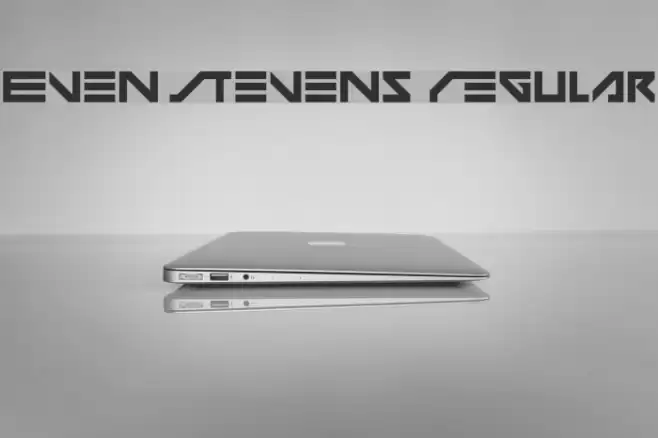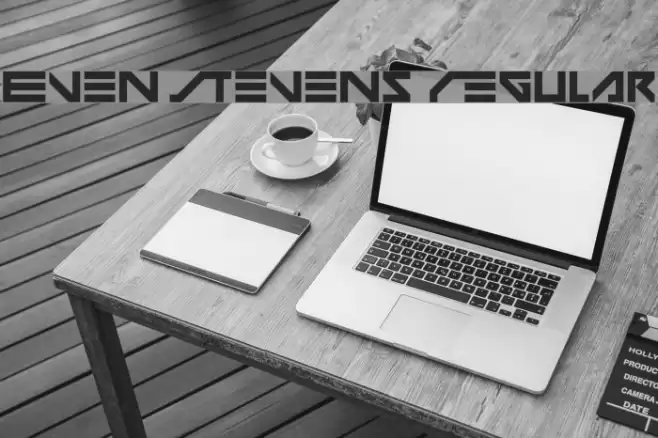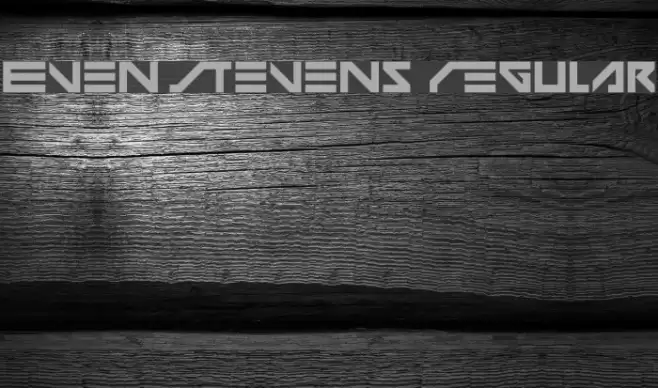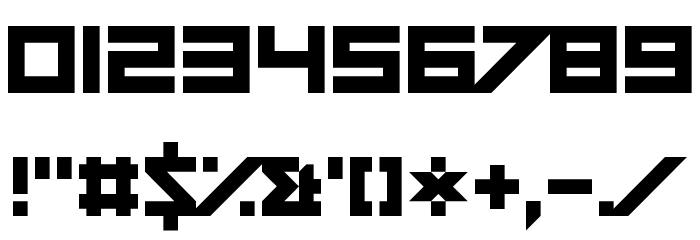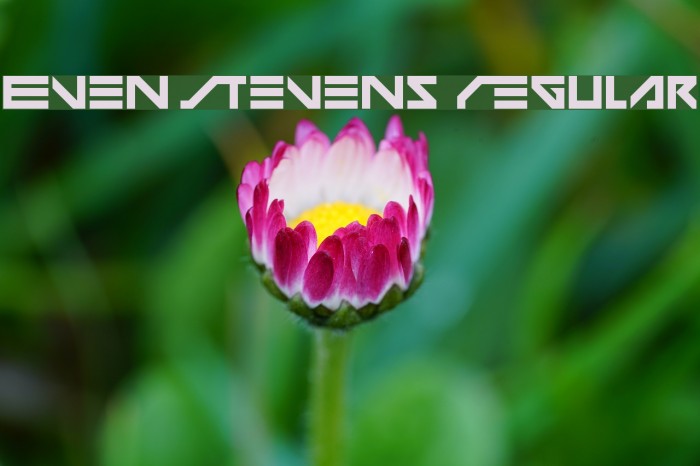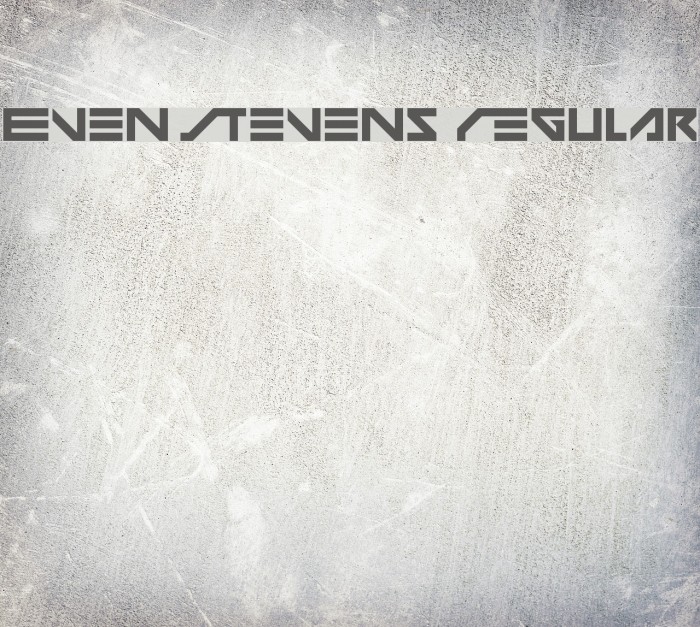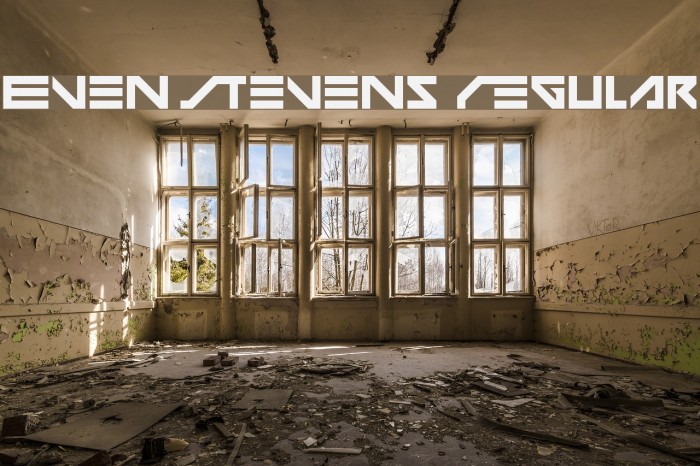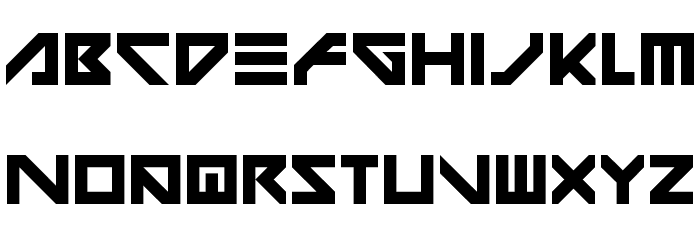
Even Stevens Regular Font
Even Stevens Regular Description
This font features a bold, geometric design with sharp angles and a futuristic aesthetic. The characters are constructed with straight lines and angular cuts, creating a sense of movement and modernity. The uppercase and lowercase letters maintain a consistent style, with a strong emphasis on horizontal and vertical lines. The numbers and special characters follow the same design principles, ensuring uniformity across all glyphs. This font's unique style makes it stand out, offering a distinctive look that is both contemporary and edgy.
A bold, geometric font with a futuristic and angular design from Futuristic fonts.
- Proposed Projects: Ideal for technology branding, sci-fi themed projects, video game titles, and modern advertising campaigns.